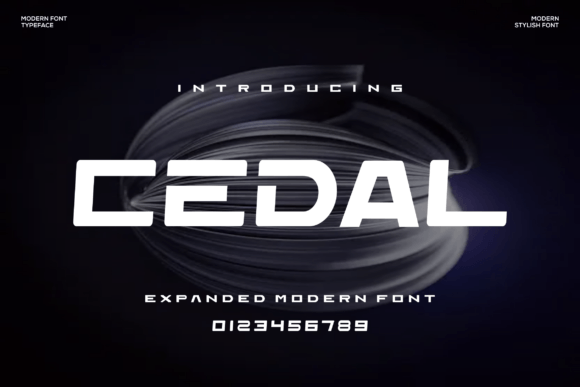
The Perfect Font to Make Your Mark: Cedal Font
Have you ever stared at a blank page, trying to come up with the perfect font to make your design pop? I know I have. And let me tell you, it’s a game-changer when you find the one that does the trick. For designers, finding the right font can be a challenge, but with the right tool, it can take your work to the next level.
Enter Cedal Font, a modern and bold font designed to make your words stand out. Whether you’re creating posters, headlines, or any other design that needs a little extra oomph, Cedal Font is the perfect choice. Its clear and readable style makes it easy to use, even for those who are not design experts. And with its trendy vibe, you can bet it’ll catch everyone’s eye.
Cedal Font Key Features
- Font Family: Cedal Font is a sans-serif typeface designed for digital use.
- Character Set: Supports a wide range of languages, including Latin, Cyrillic, and Greek.
- Font Size: Available in various sizes, including 14, 18, and 24 points, with a minimum size of 12 points.
- Unique Characteristics: Cedal Font features a clean and modern design with a subtle rounded edge, making it suitable for digital interfaces, signage, and publications.
Cedal Font Review
Overall, I’m impressed with Cedal Font, and I think it’s a great addition to any designer’s toolkit. Here are the things that work well:
- ✨ Unique and modern design: Cedal Font has a distinctive look that sets it apart from more traditional fonts. Its clean lines and elegant curves make it perfect for modern branding and design projects.
- ✨ High legibility: Despite its unique design, Cedal Font is still easy to read, even at smaller font sizes. This makes it a great choice for body text and other applications where readability is crucial.
- ✨ Great for digital use: Cedal Font is optimized for digital use, making it perfect for websites, apps, and other digital platforms.
However, I do have some reservations about Cedal Font:
- ⚠️ Limited font sizes: While Cedal Font is great at smaller font sizes, it can start to look a bit rough at larger sizes. This might be a concern for designers who need to use the font in large headlines or titles.
- ⚠️ Limited language support: Cedal Font only supports a limited number of languages, which might be a concern for designers who need to work with multiple languages.
Overall, I think Cedal Font is a great choice for designers who want a modern and unique font for their projects. While it has some limitations, its unique design and high legibility make it a great addition to any toolkit.
Cedal Font is a versatile font that can be used for a variety of purposes, including:
- Typography-based designs
- Marketing materials